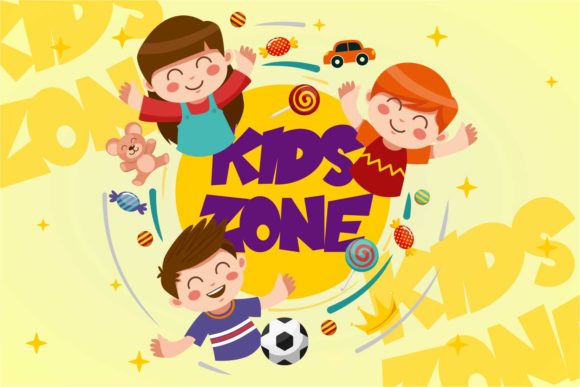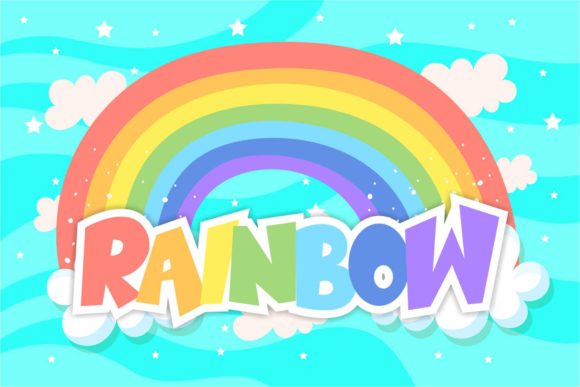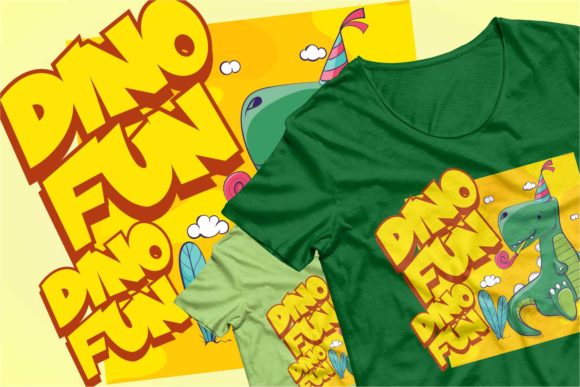
Introduction to Lalapis Font
Do you remember the excitement of creating a project as a child, with colors and textures blending together in a beautiful mess? The joy of bringing an idea to life is something that never truly fades, and it’s what drives us as designers to push the boundaries of creativity. For those seeking a design resource that captures the essence of childhood wonder, look no further than the enchanting Lalapis Font.
As a high-quality display font, Lalapis Font is the perfect addition to any creative project. Its childlike playfulness is contagious, making it an ideal choice for kids and school projects. But its value extends far beyond the realm of education – designers of all levels will appreciate the freedom to express themselves with this versatile font.
- Unique characteristic: A modern, elegant design with a touch of sophistication, making it perfect for branding, typography, and other design applications
Honest Review: Lalapis Font
I recently had the chance to experiment with the Lalapis Font, and I must say it’s been a delightful experience. The Lalapis Font is a beautiful, high-quality font that’s perfect for any creative project that requires a touch of elegance.
- ✨ High-quality design: The font is meticulously crafted with attention to detail, making it perfect for designers looking for a premium font.
- ⚠️ Limited font styles: The Lalapis Font currently only comes in a few styles, which may not be sufficient for designers working on complex projects.
- ⚠️ Limited language support: The font may not support all languages, which could be a limitation for designers working on international projects.
Overall, I’m thoroughly impressed with the Lalapis Font. It’s a high-quality design resource that’s perfect for any creative project. With a few tweaks to address the limitations, I’m confident that the Lalapis Font will become a go-to resource for designers everywhere.
Tips for Getting the Most Out of Lalapis Font
For the best results, use Lalapis Font with a transparent background to create a clean and minimalist design.
You can also experiment with different font sizes and colors to add depth and visual interest to your project.
Lalapis Font is ideal for various design projects, including logos, business cards, and social media graphics.